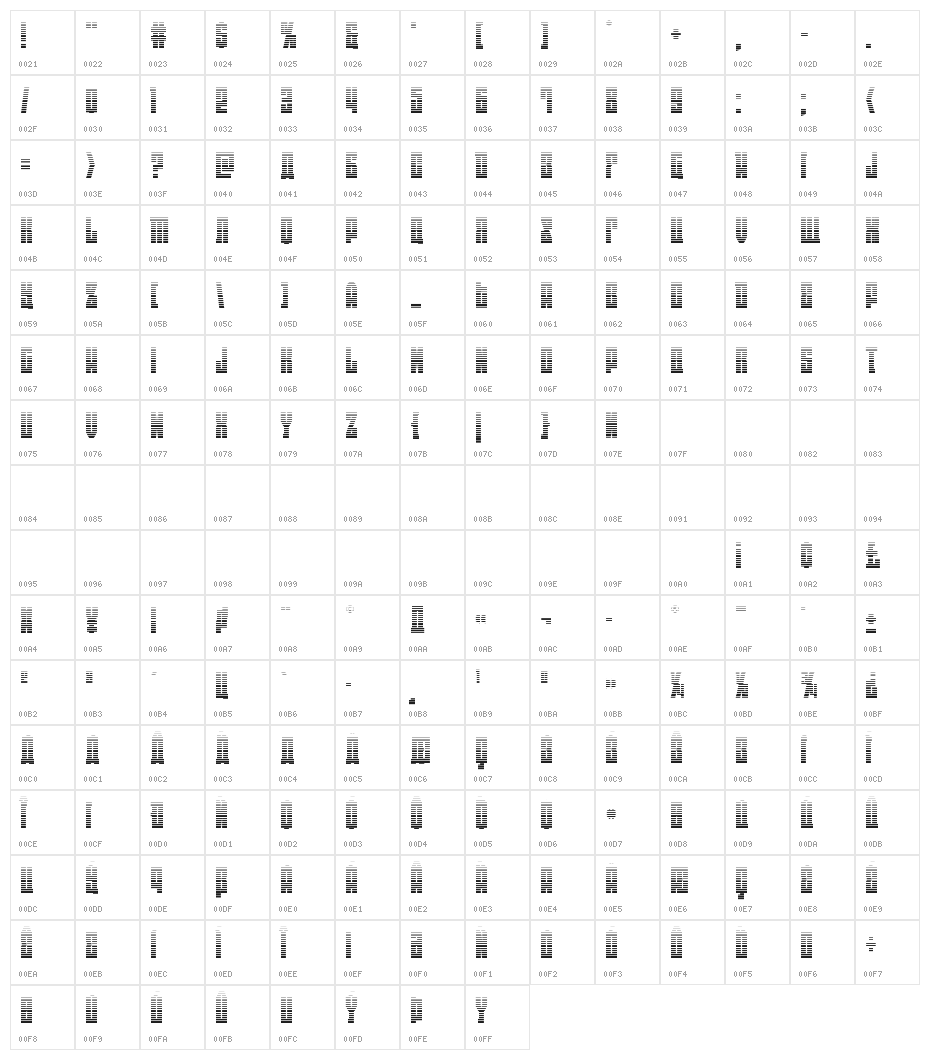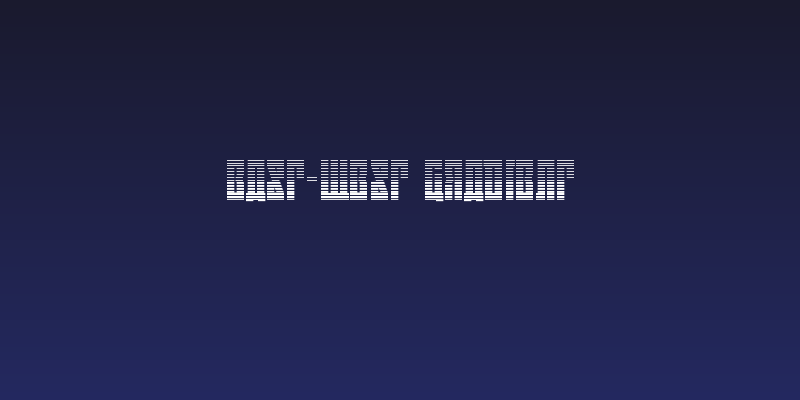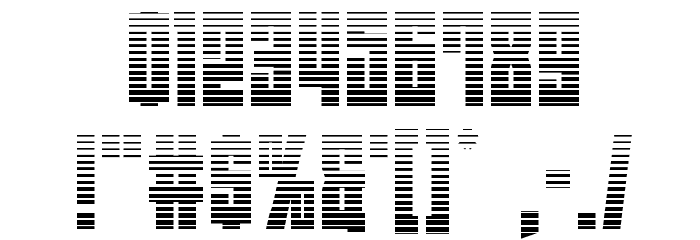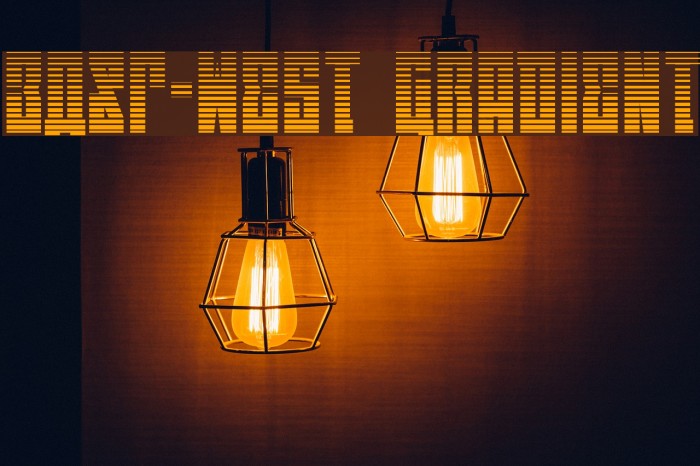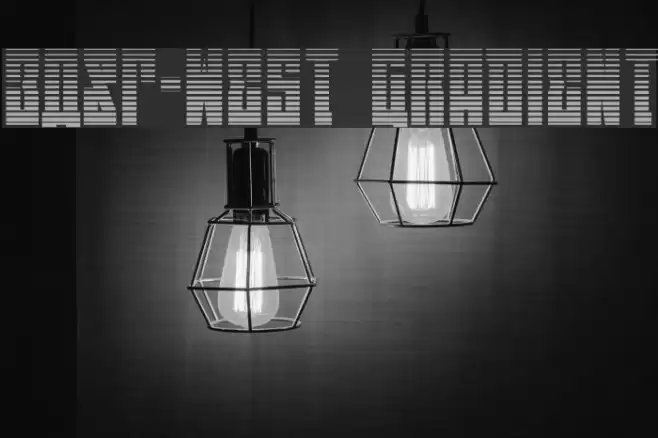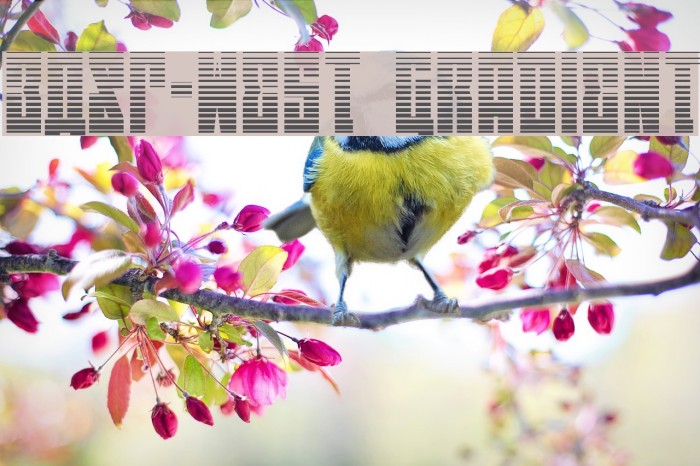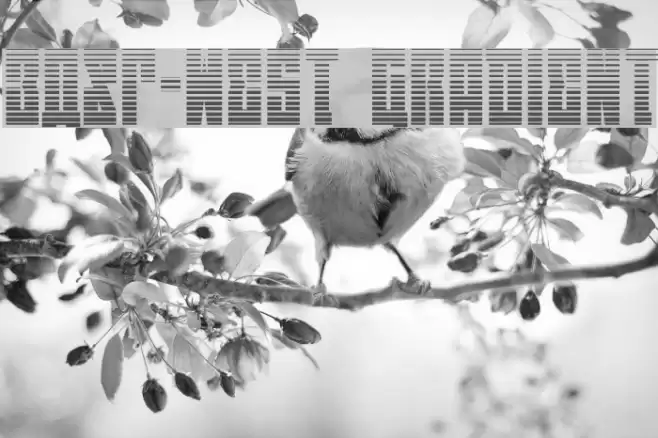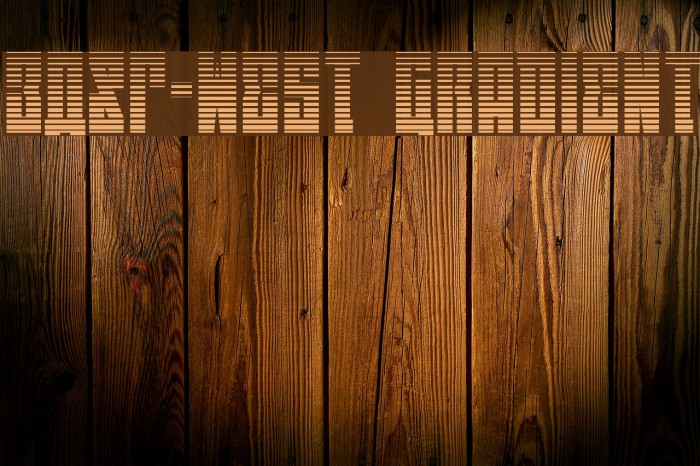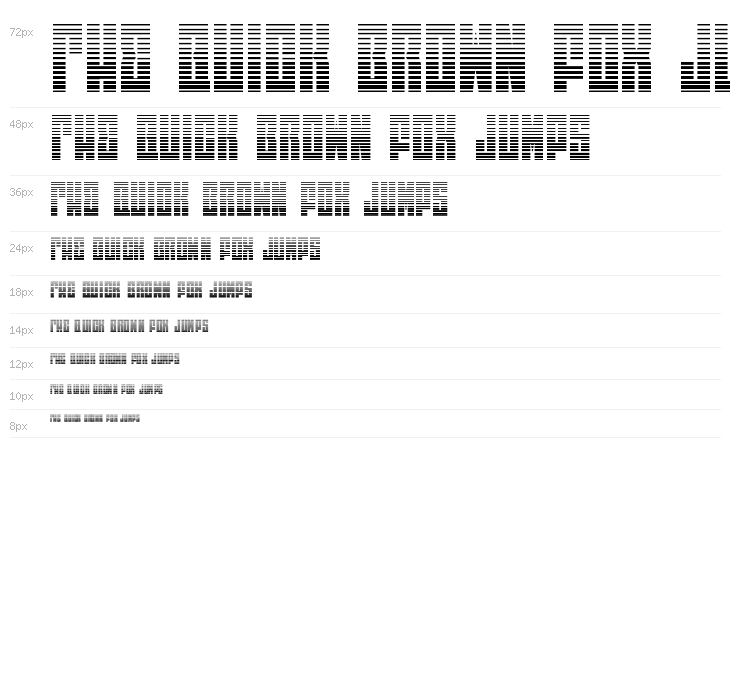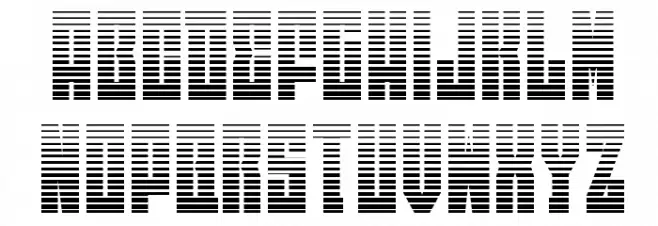
EAST-west Gradient Font
EAST-west Gradient Description
This font features a unique, striped design that creates a gradient effect across each character. The bold, geometric shapes are composed of horizontal lines that vary in thickness, giving the font a dynamic and modern appearance. The uppercase and lowercase letters maintain a consistent style, with the uppercase being slightly more pronounced. Numbers and special characters are also included, following the same striped pattern. This font is highly decorative and stands out due to its distinctive visual style.
| Proposed Projects | Ideal for use in graphic design projects, posters, album covers, and branding where a striking and modern aesthetic is desired. |